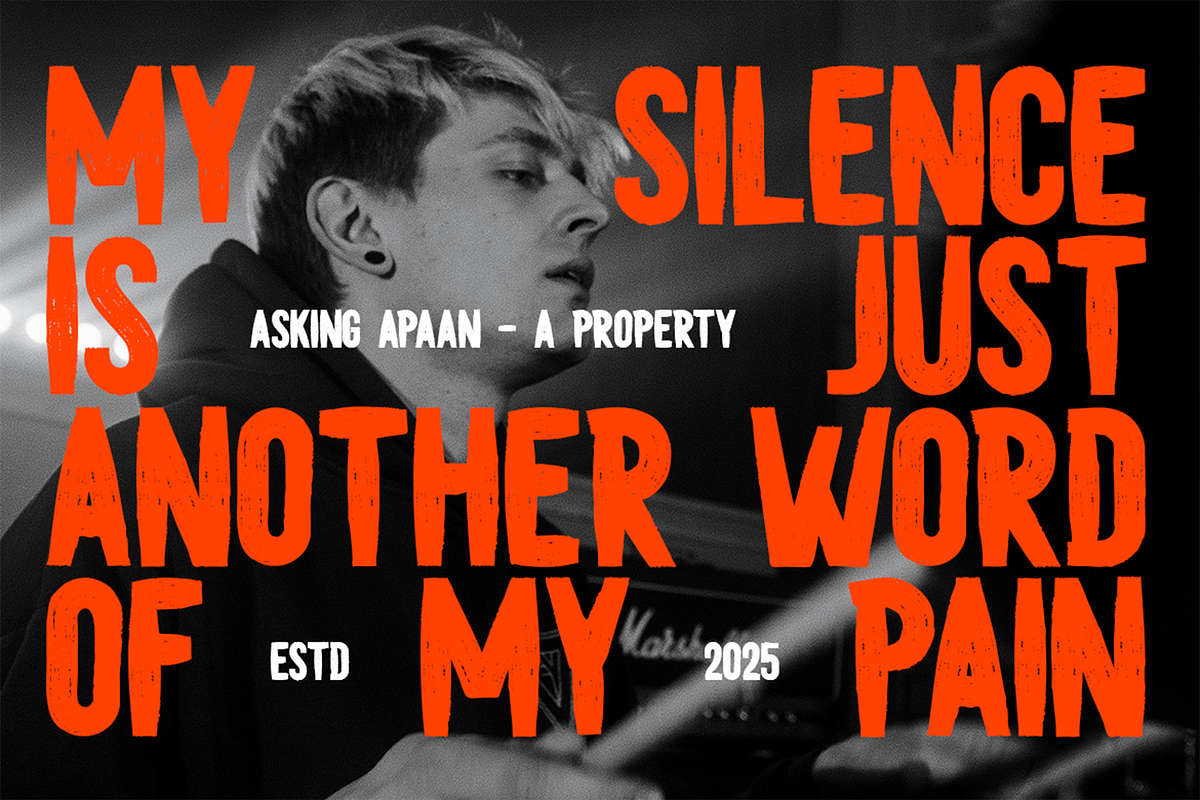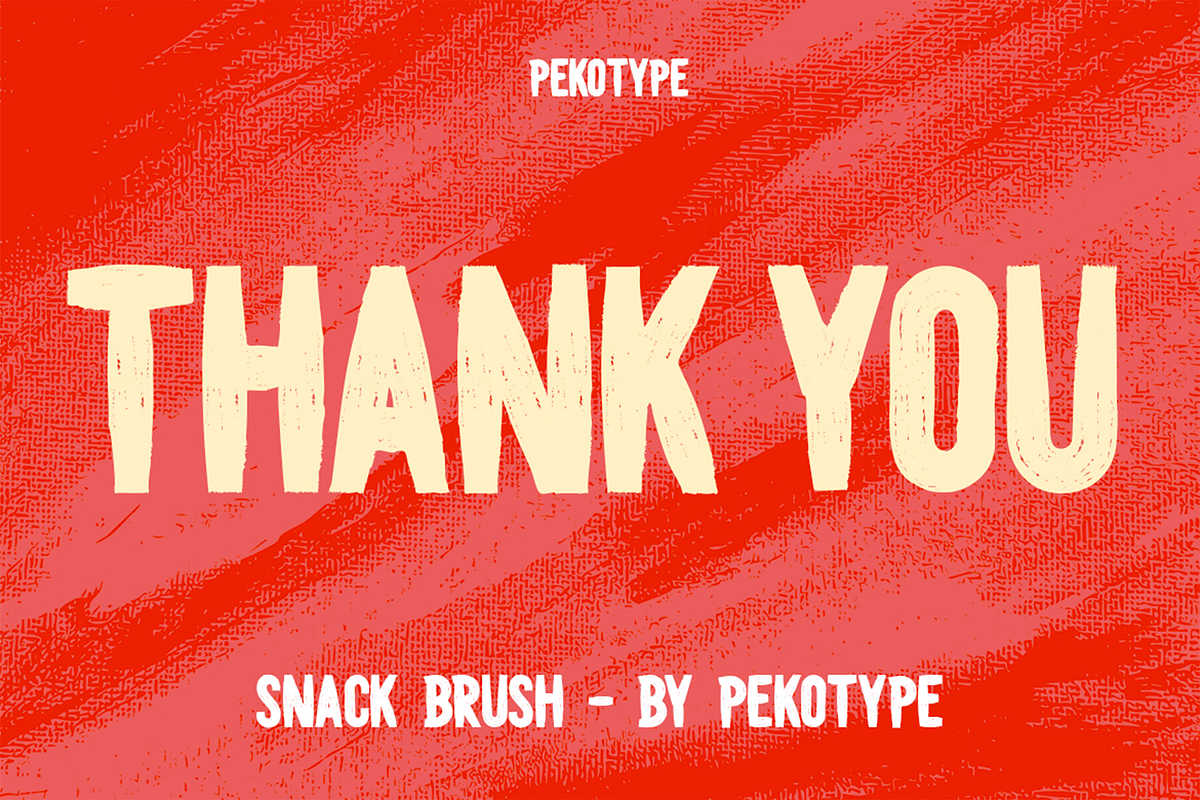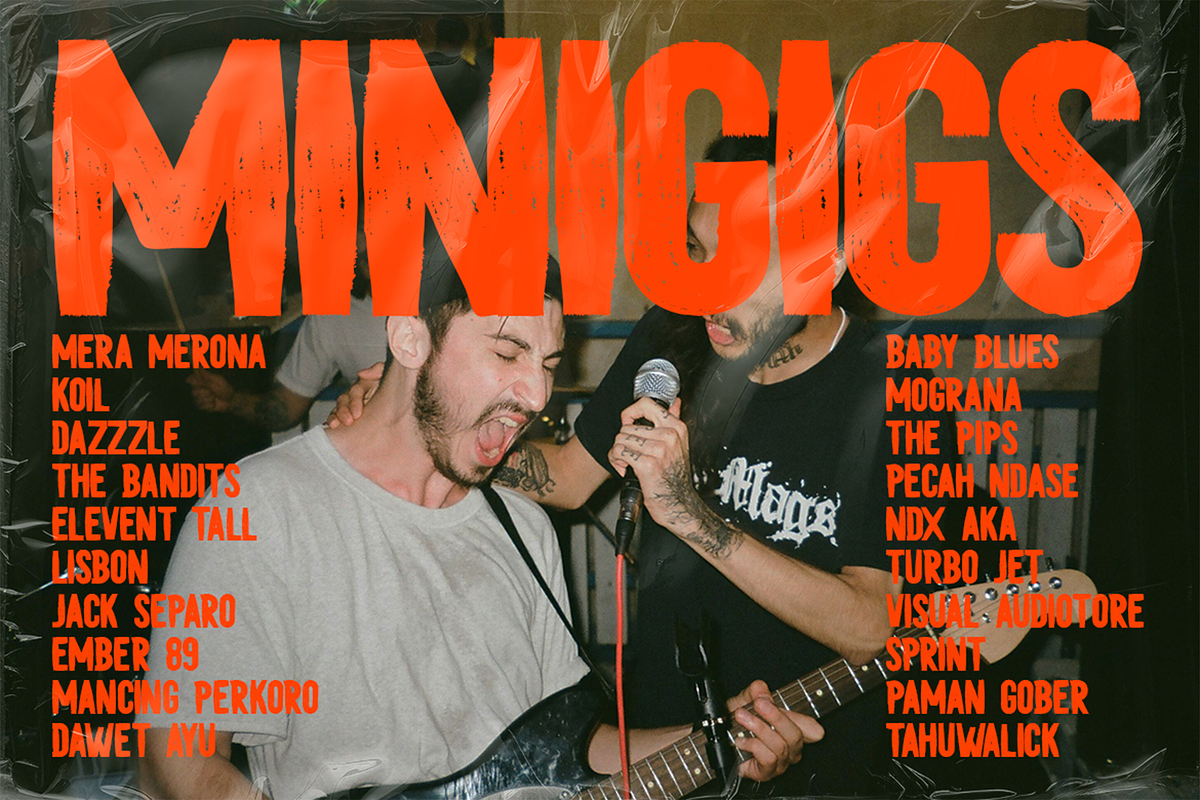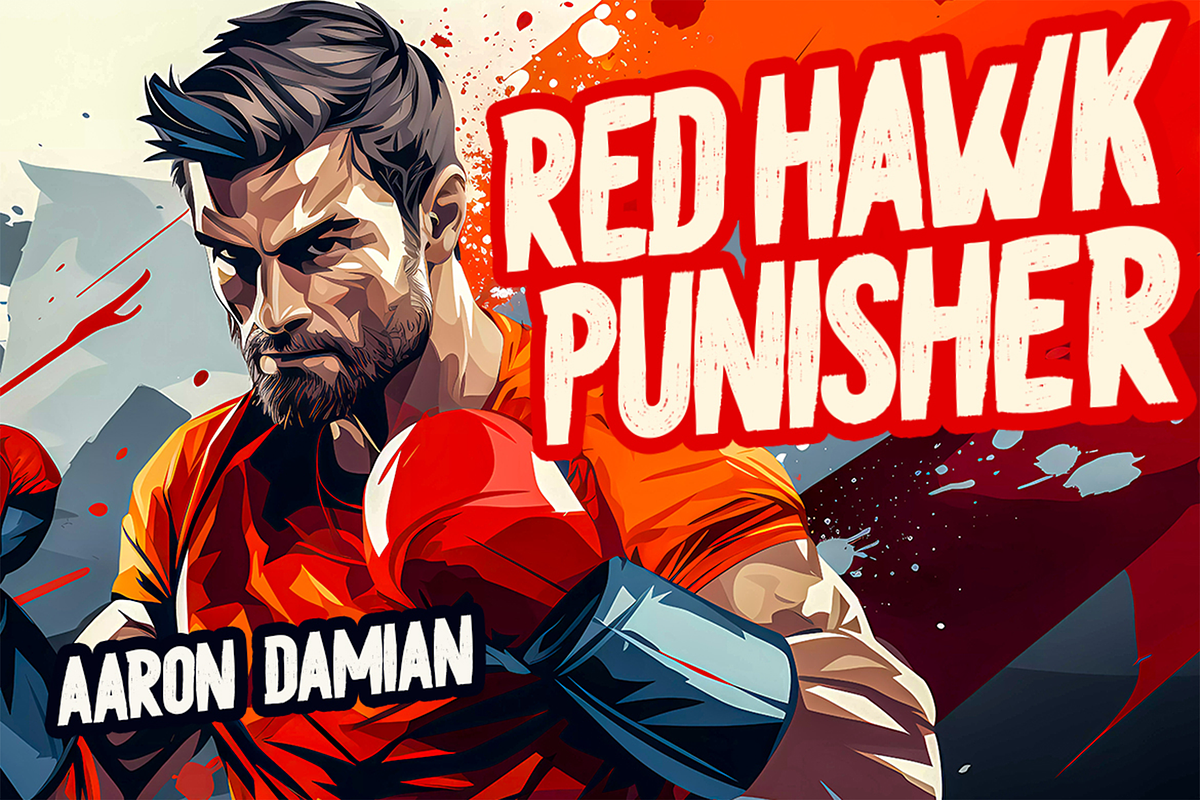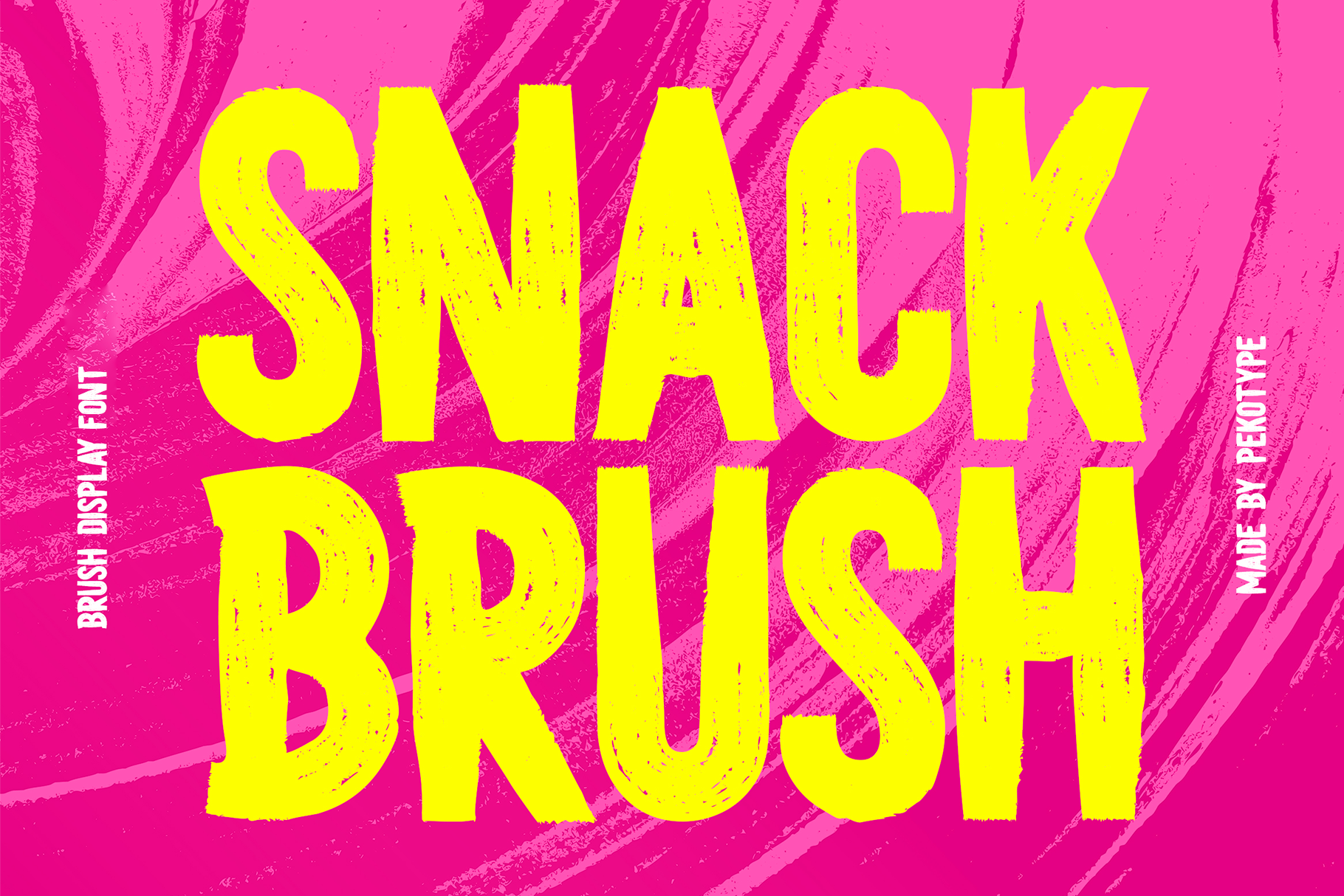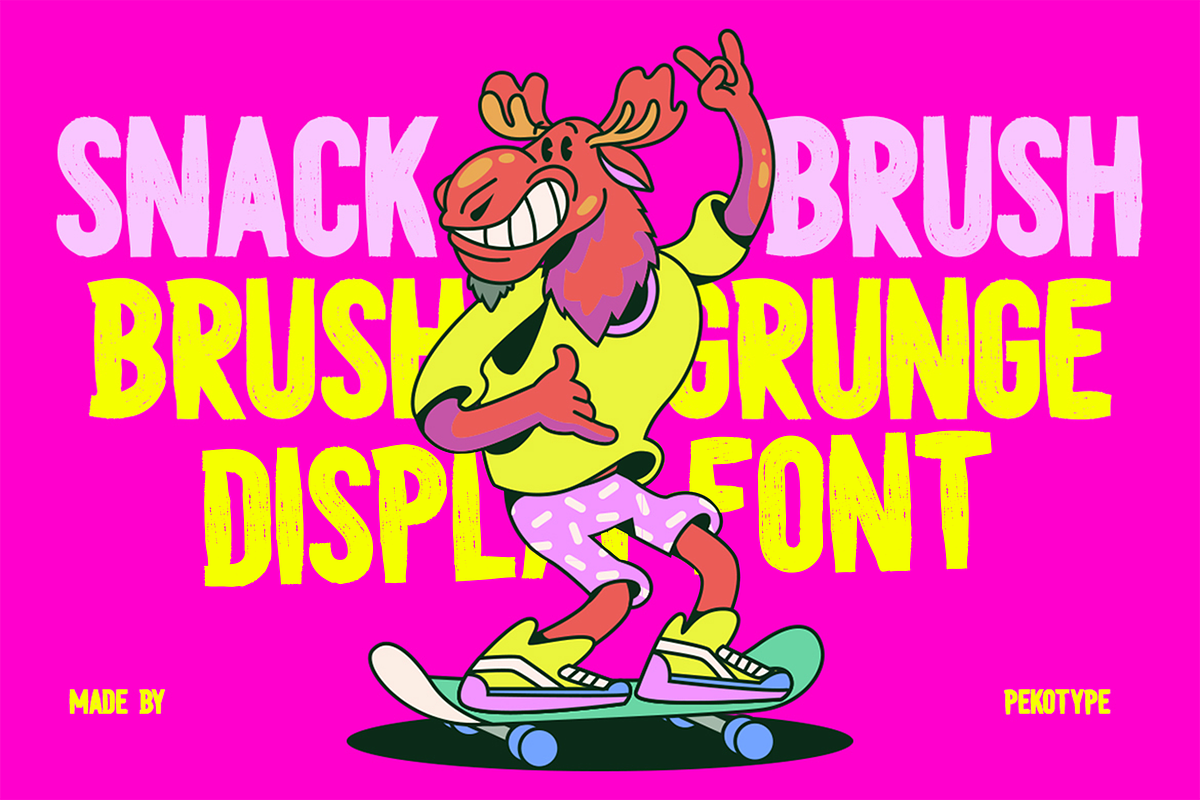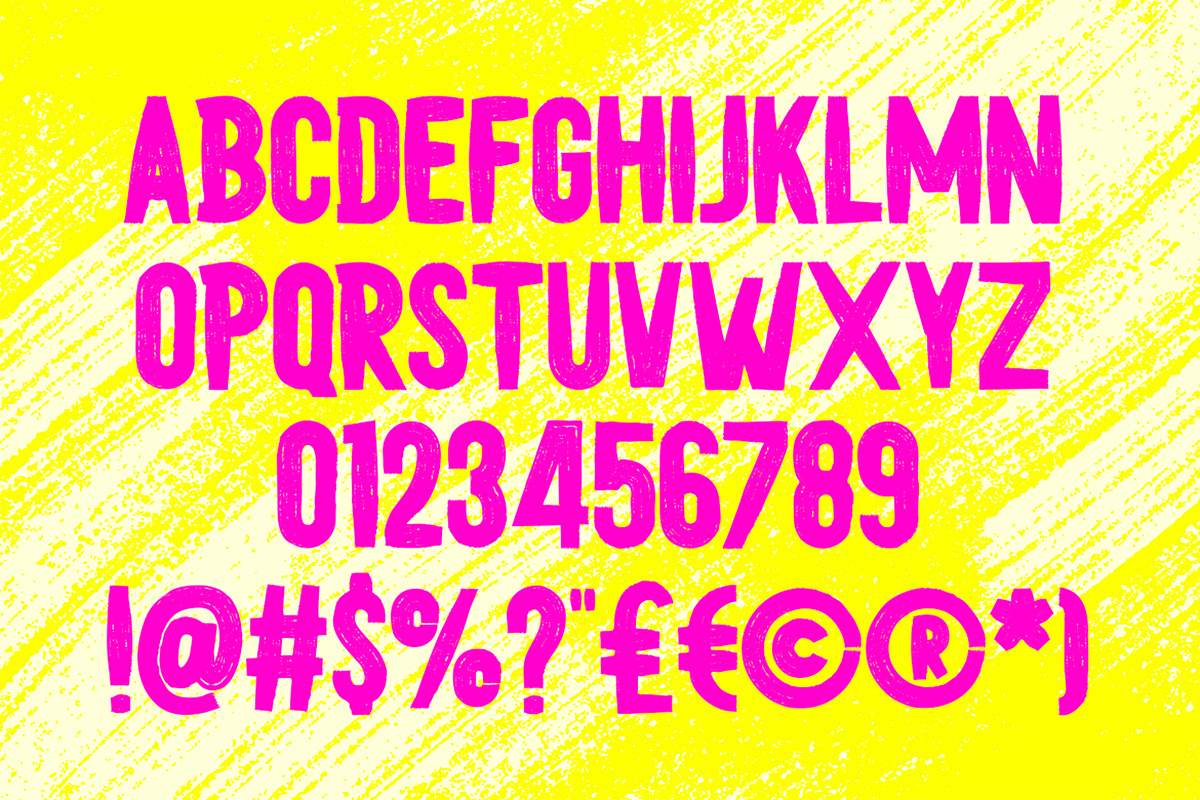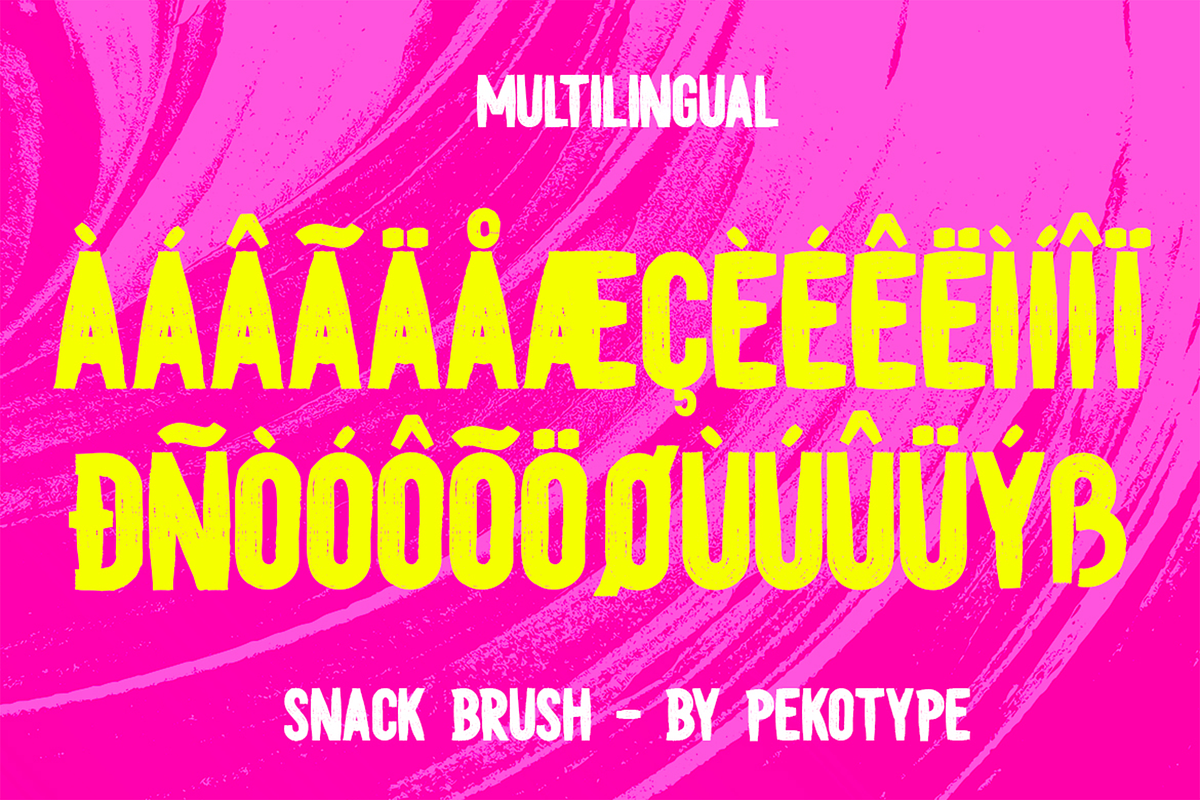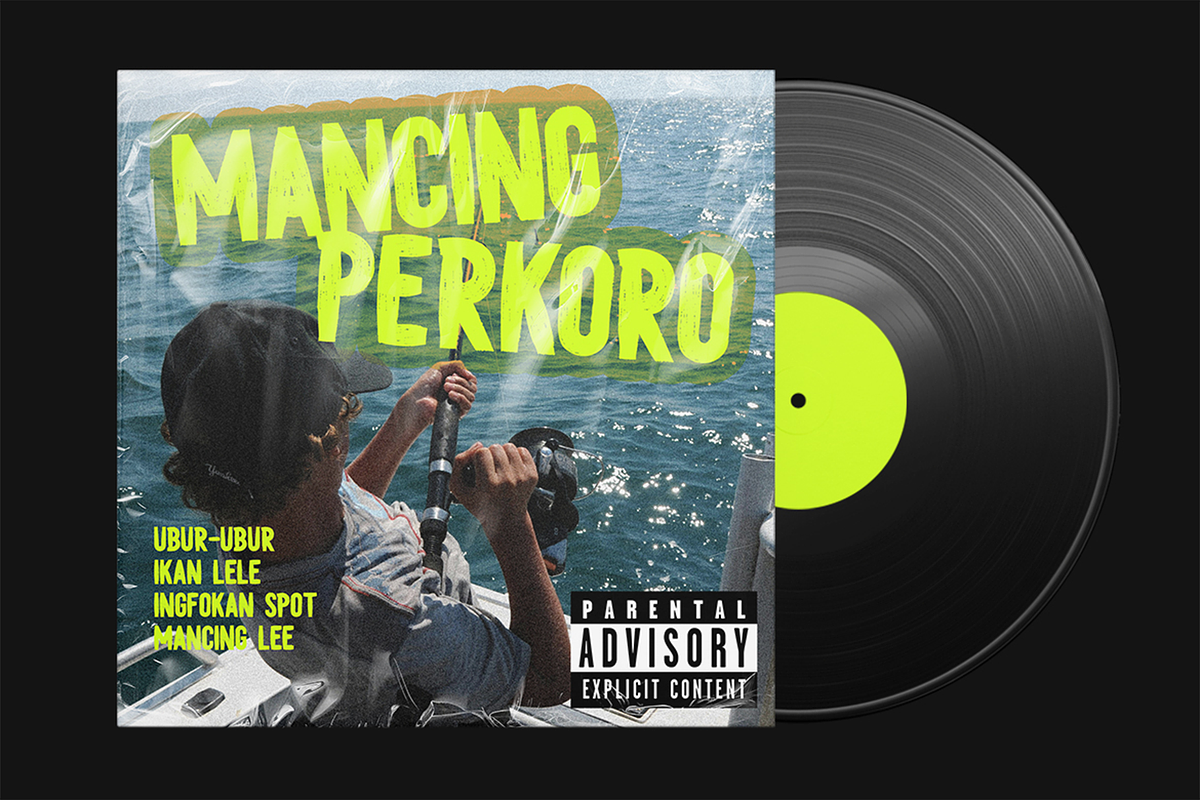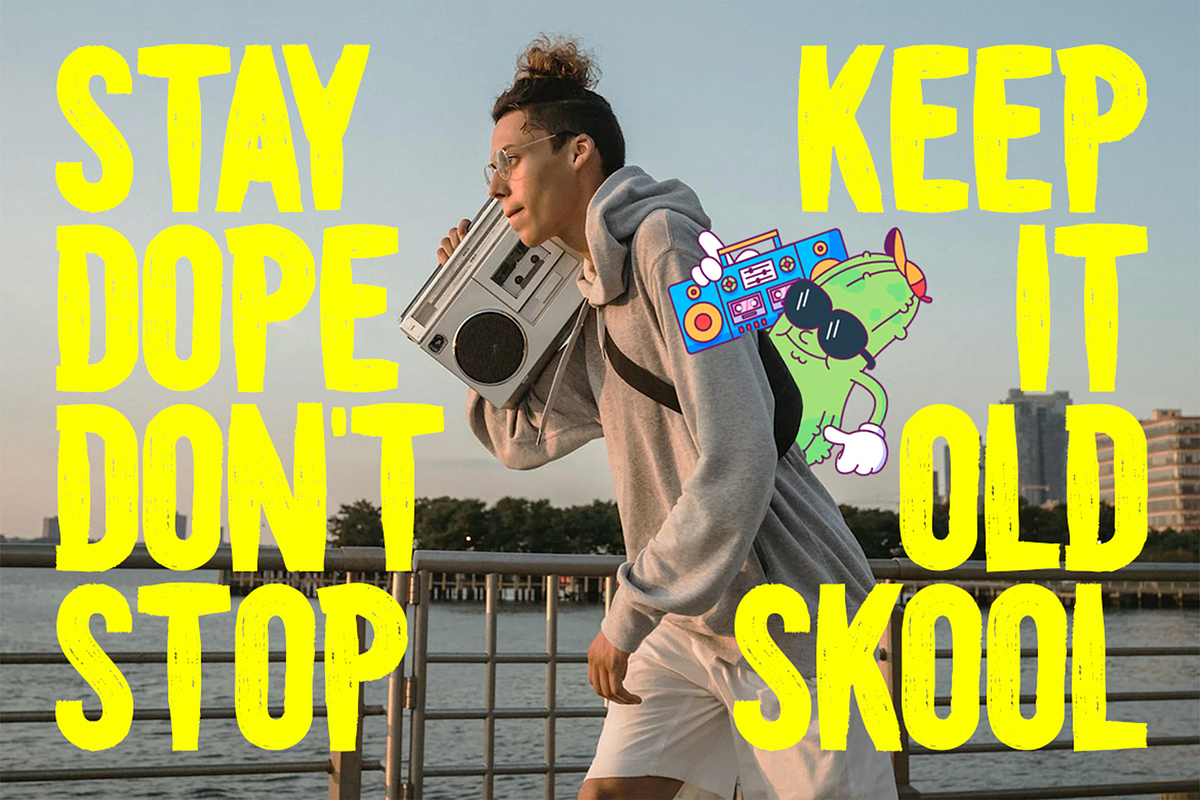
Snack Brush - Brush Display Typeface
SNACK BRUSH is a bold condensed brush font designed to make a statement. With its powerful strokes, raw textures, and fearless energy, this font delivers strength and attitude in every letter. Whether you're crafting branding, logos, packaging, merchandise, or social media graphics, SNACK BRUSH adds a dynamic, handcrafted touch that grabs attention instantly.
Inspired by authentic brush strokes, SNACK BRUSH balances rugged edges with bold precision, making it perfect for streetwear brands, sports designs, posters, and impactful typography. If you need a font that speaks boldness, bravery, and creativity, SNACK BRUSH is your ultimate choice.